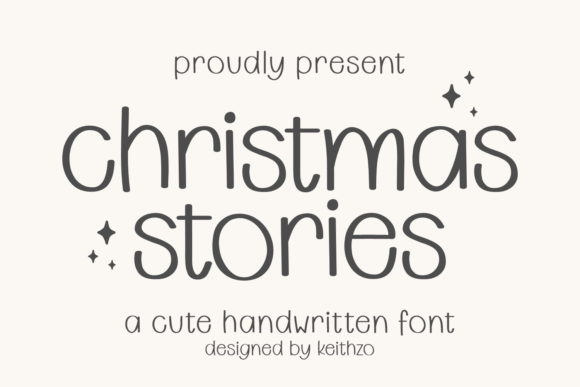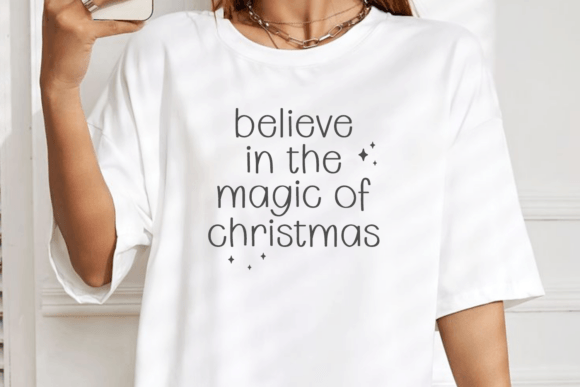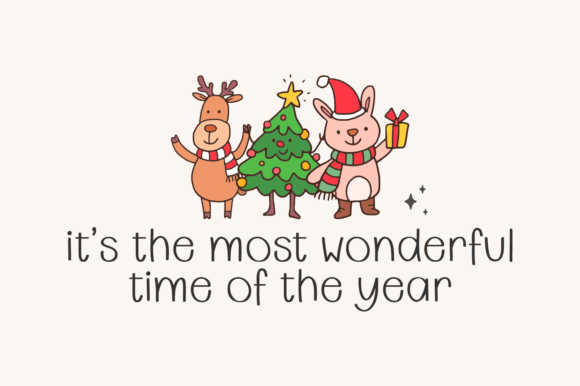
Christmas Stories Font
Presenting Christmas Stories, a delightful fusion of whimsical, handwritten font designed to add enchantment to any endeavour. Imagine it enhancing blog articles, infusing a touch of intimacy to birthday invites or making diary pages exceptionally unique. Allow Christmas Stories to serve as your preferred font, ready to bestow a sprinkle of coziness on greeting cards, or to convey appreciation with a sincere note for school. Even photo albums can bask in the charm of Christmas Stories’ delightful simplicity to make treasured memories even more memorable.